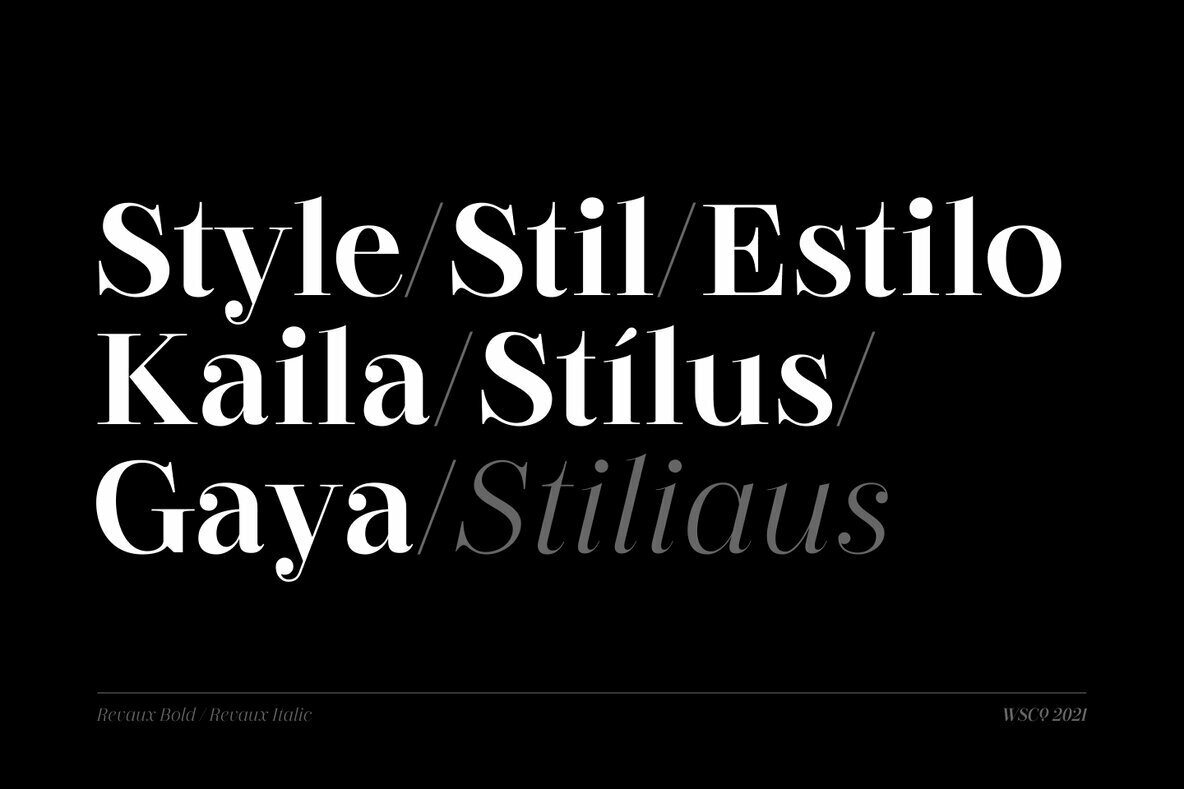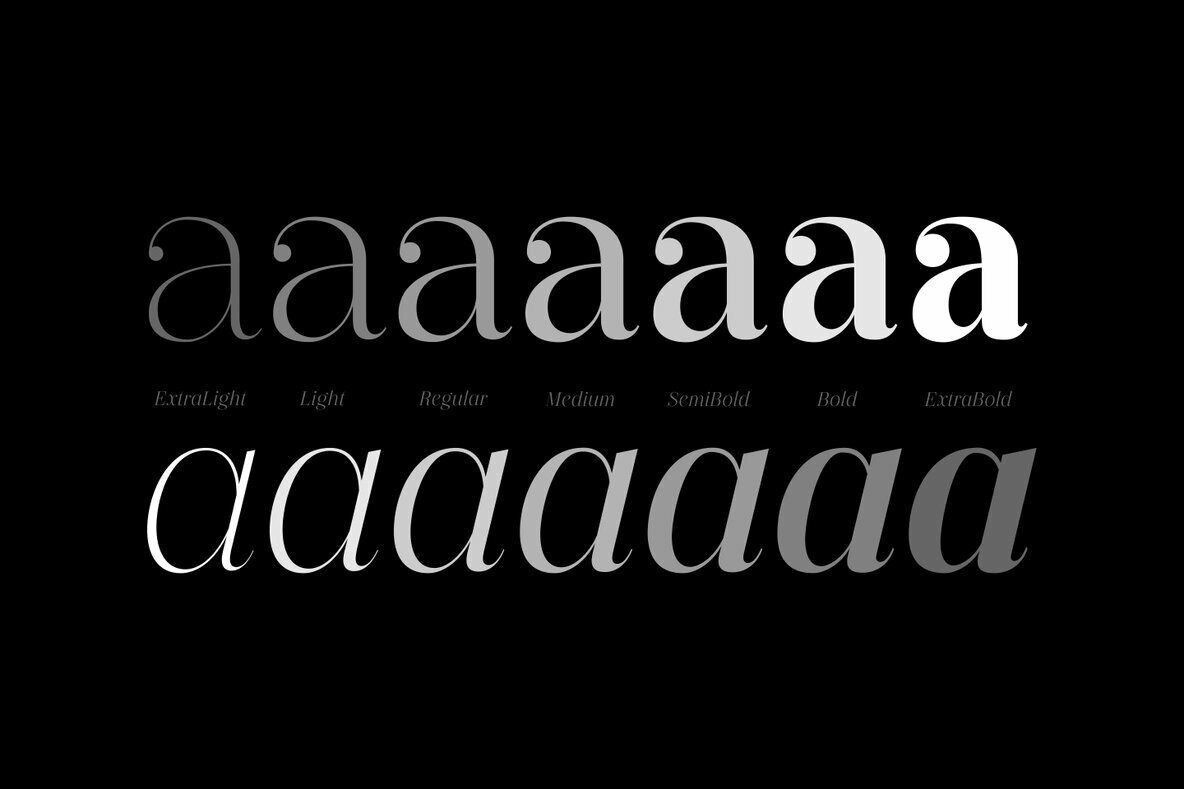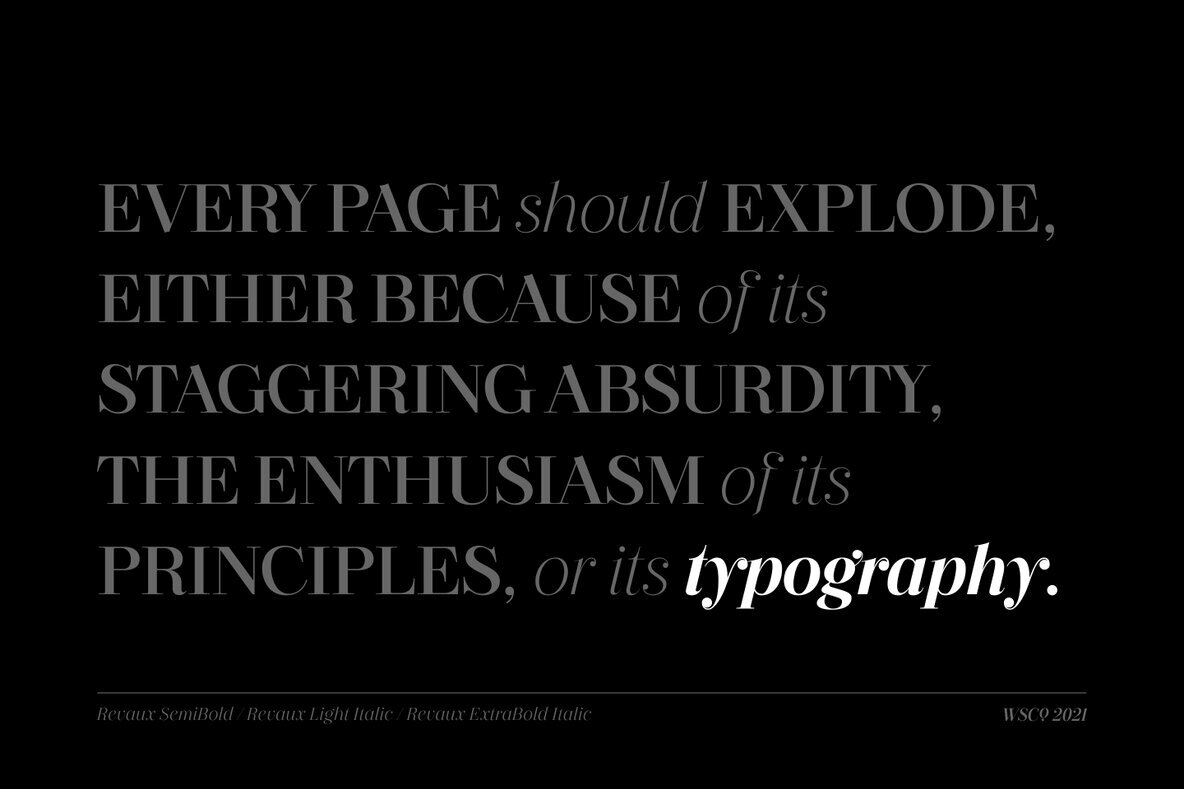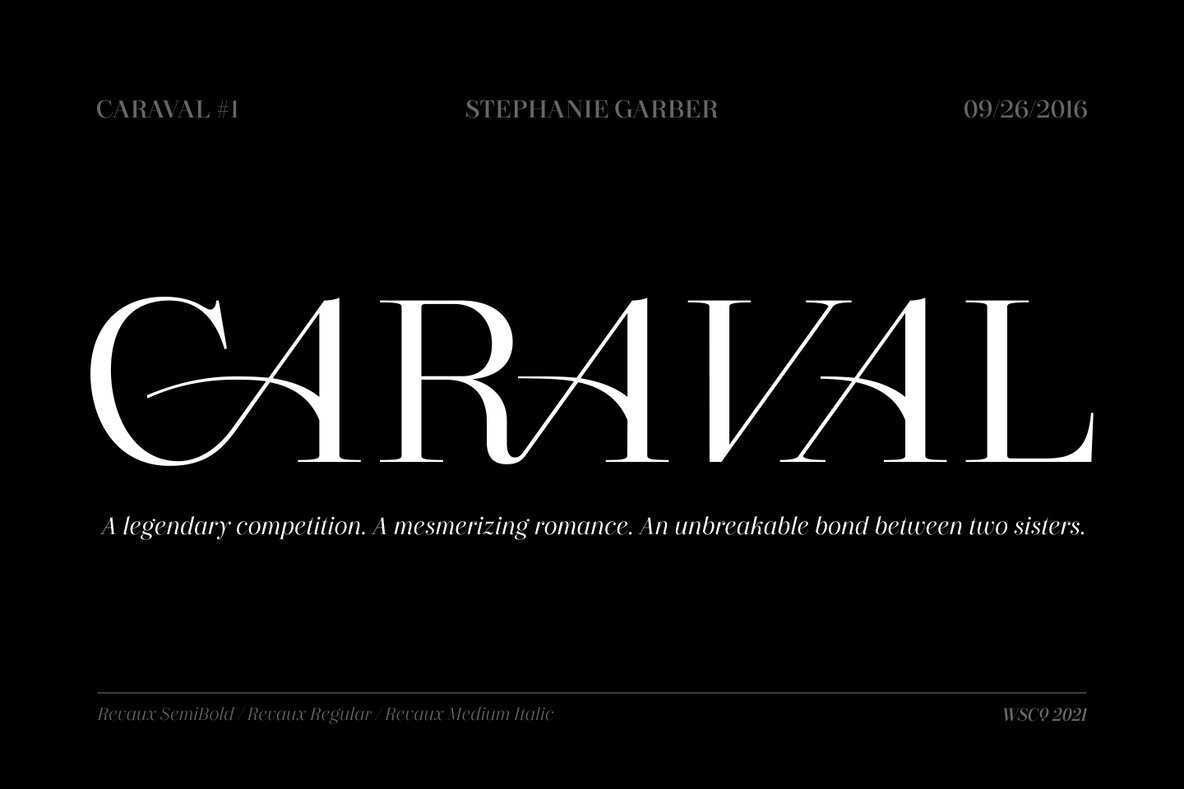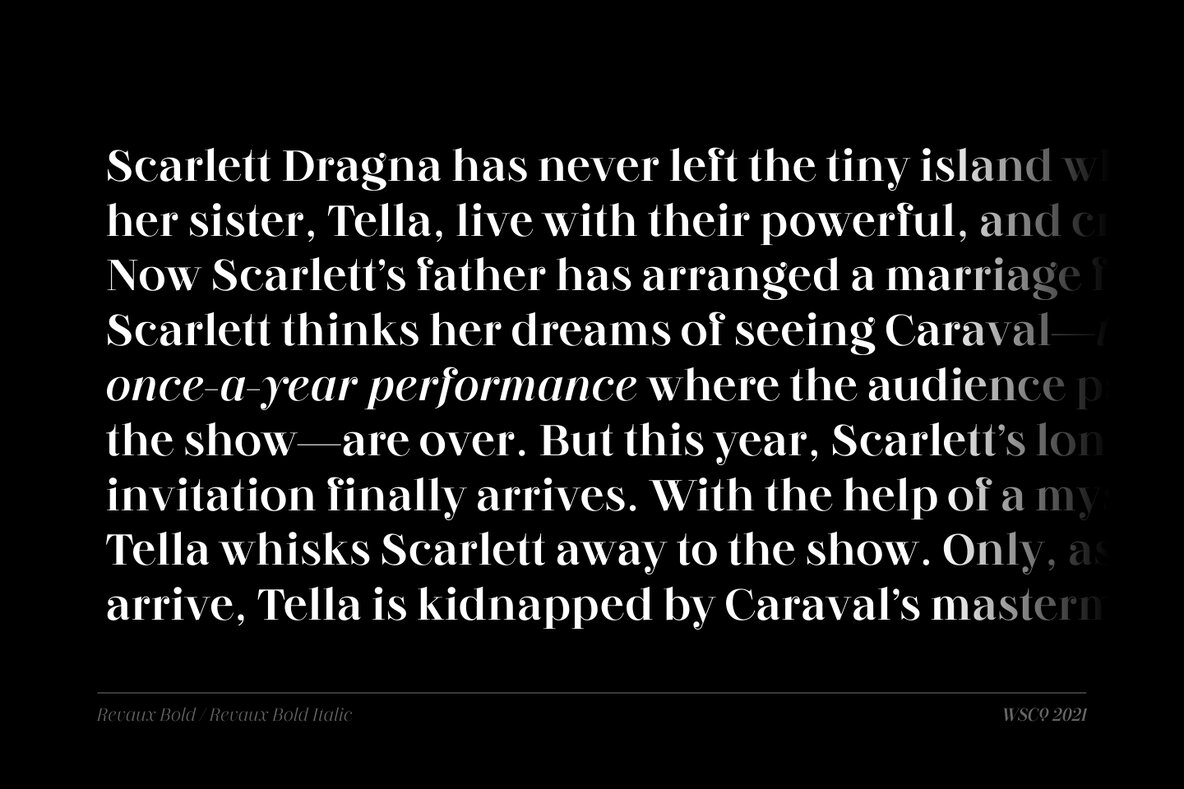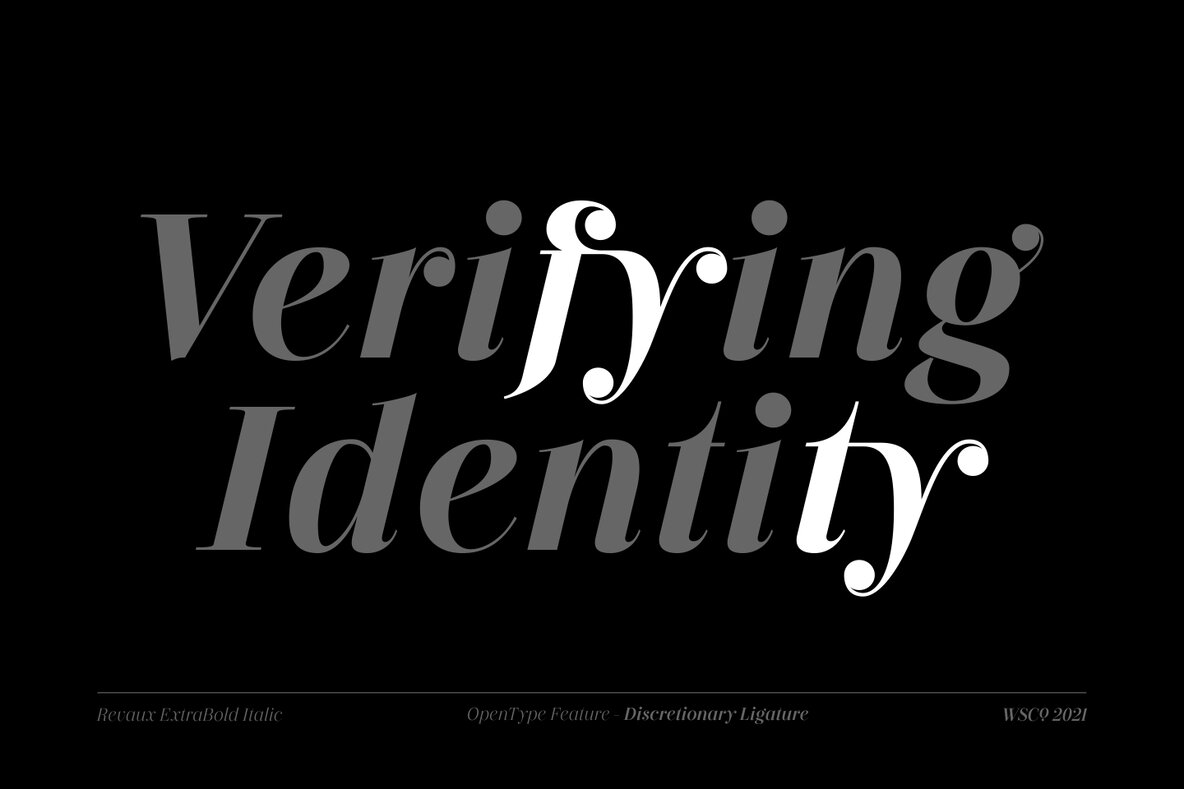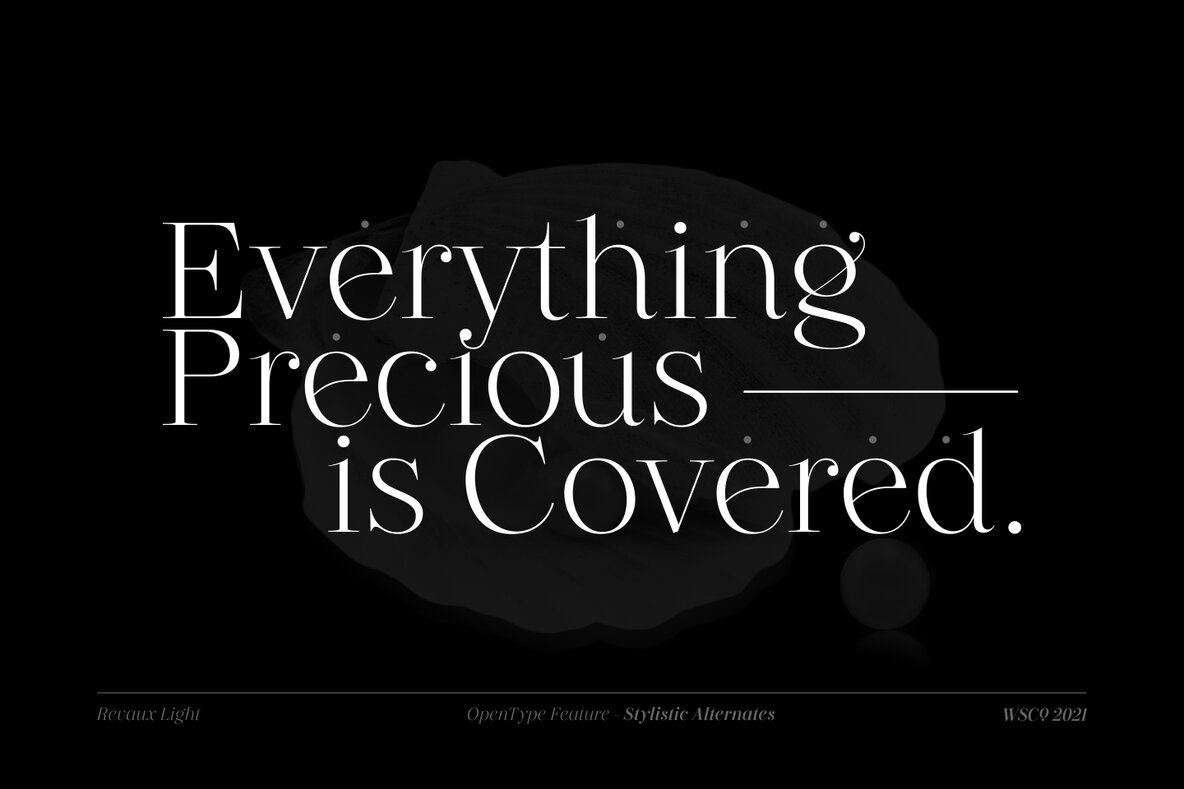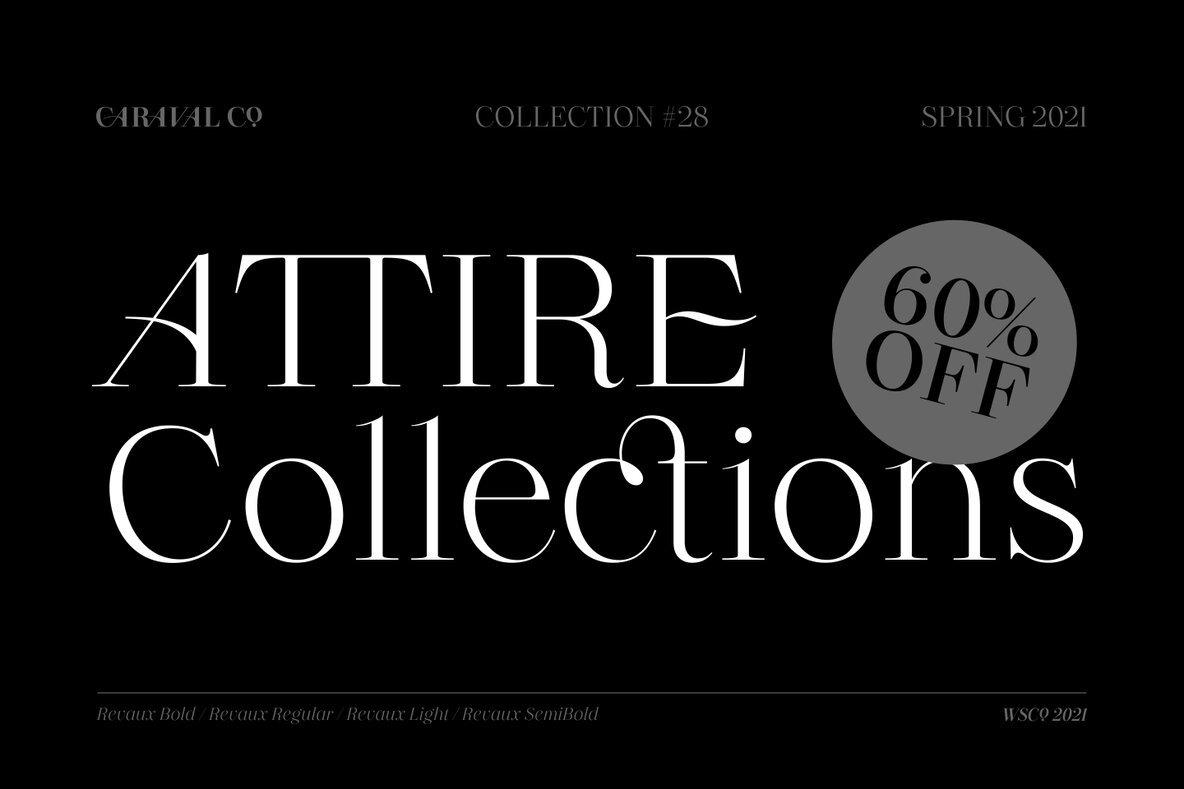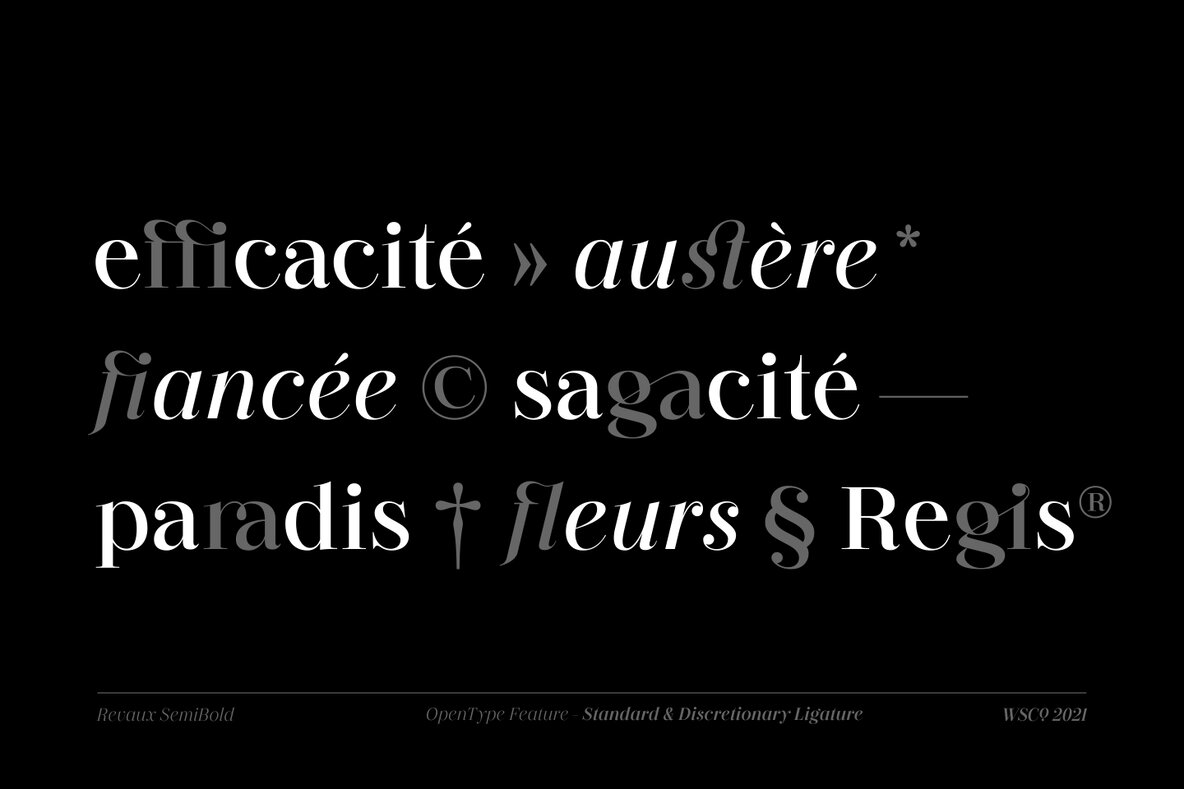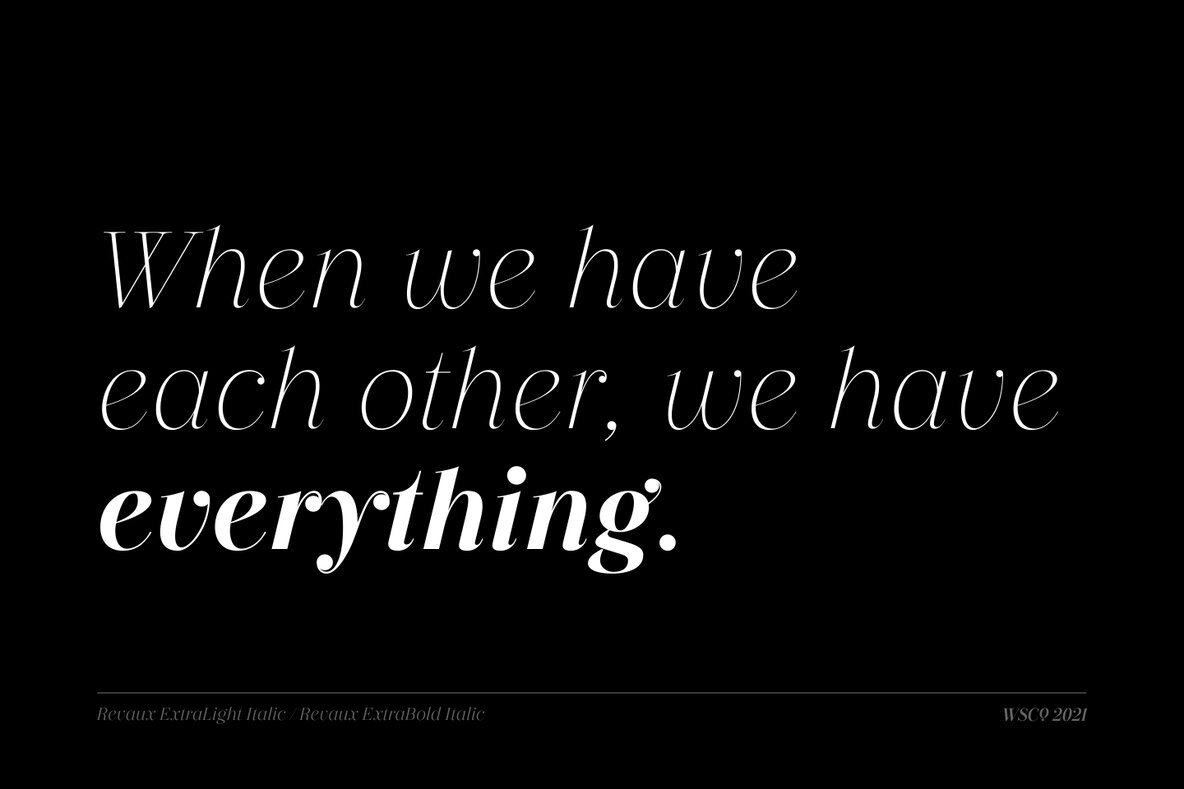
Revaux Font
Revaux is elegant display serif designed with ball terminals and back-slanted counters which is uncommon in type design. Modern, Stylish and Elegant were the main keywords to keep when designing the typeface. Revaux is a family of 14 fonts, consisting of 7 weights from Extra Light to Extra Bold for both upright and italic styles.
Each font has 230+ glyphs including alternates & ligatures which support Major Western European languages - 61 languages supported! Revaux is unique, different, and a must have item to complete your font arsenal!